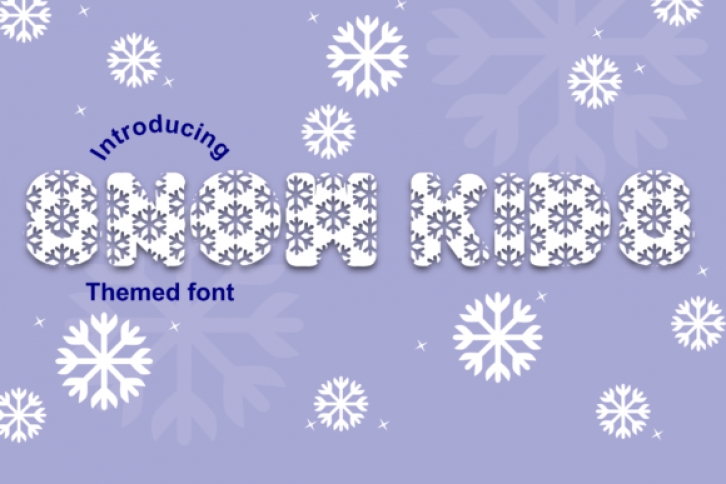
Snow Kids is a fun and chunky lettered display font. It is suitable for any winter branding, product packaging, invitation, quote, t-shirt, label, poster, logo that you wish to create.